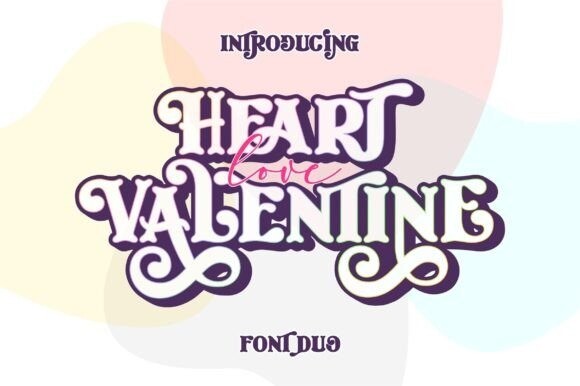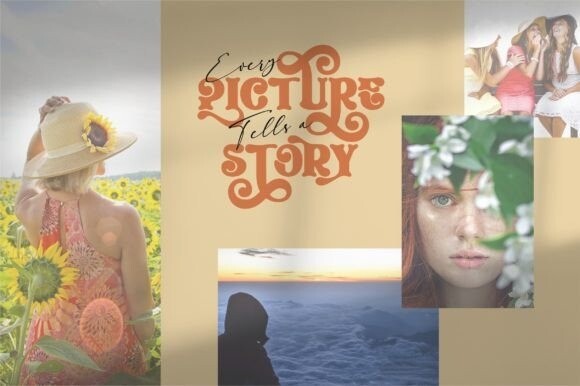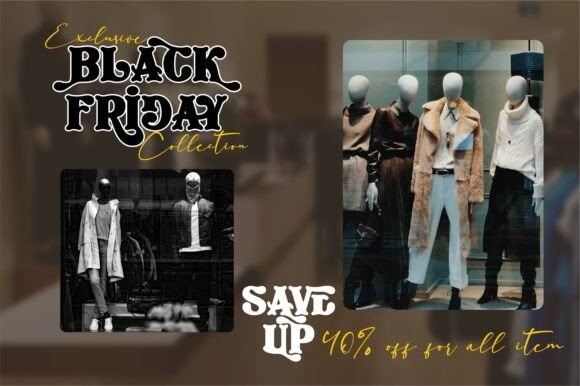
Heart Love Valentine Duo Font
Heart Love Valentine is a lovely and sweet font duo (display and script). It will look great on headlines, magazines, logos, branding and so much more! Whatever the topic, this font will be a wonderful asset to your font library. It is PUA encoded which means you can access all of the glyphs and swashes with ease!